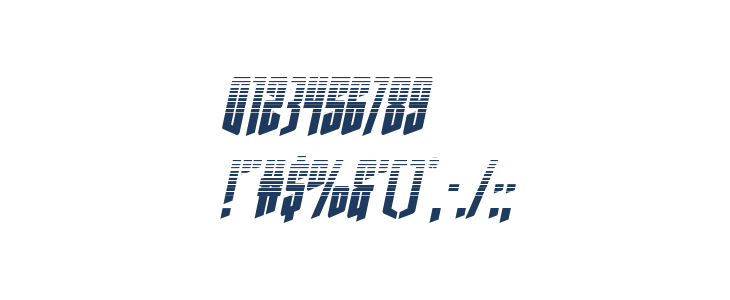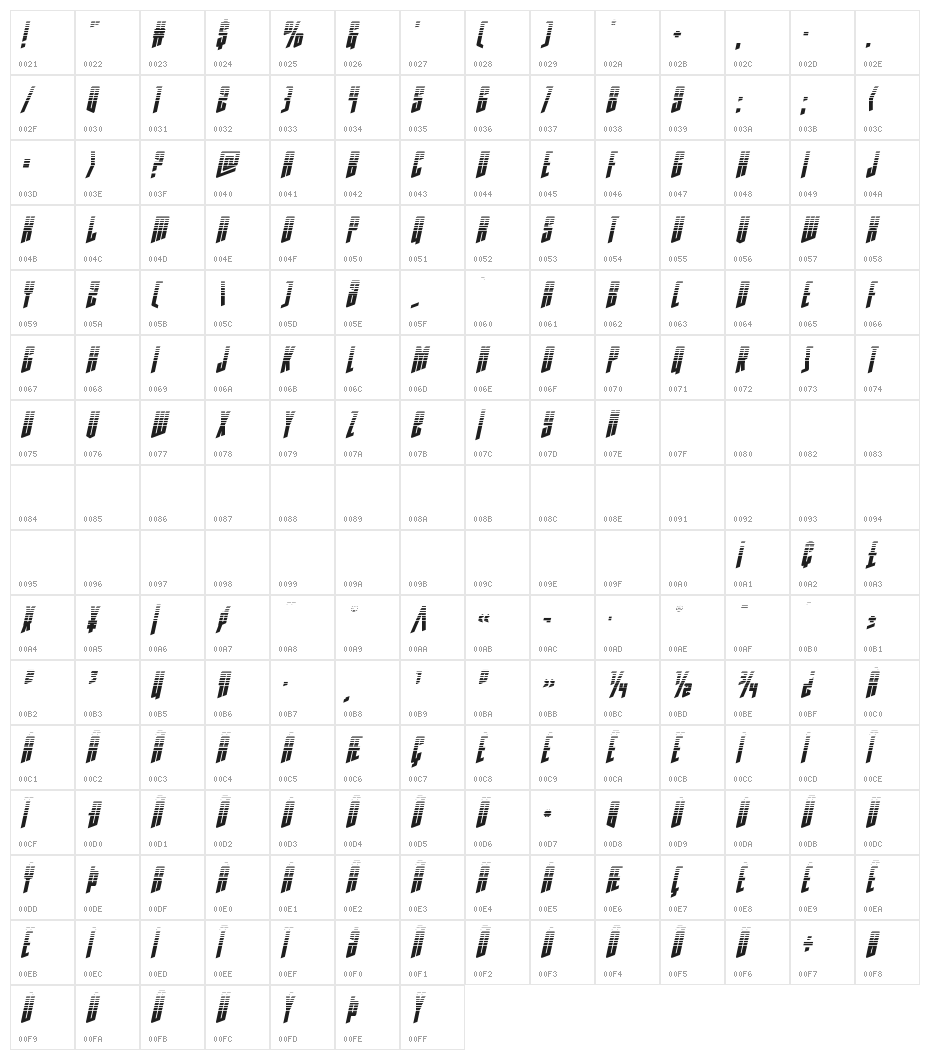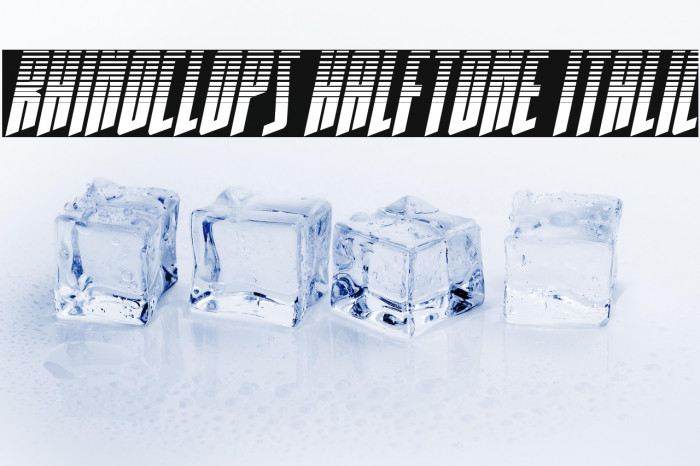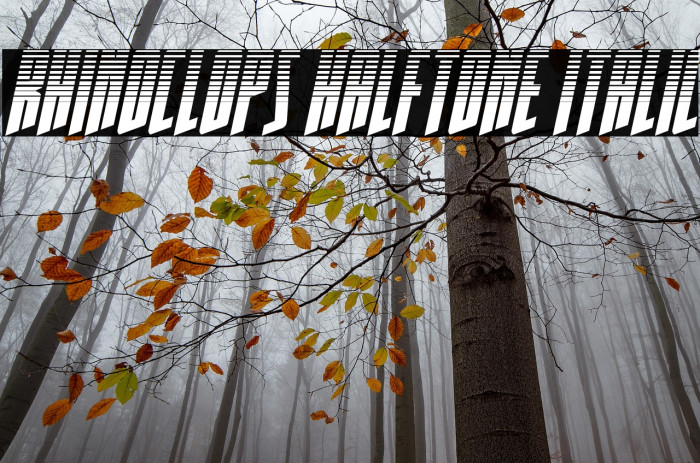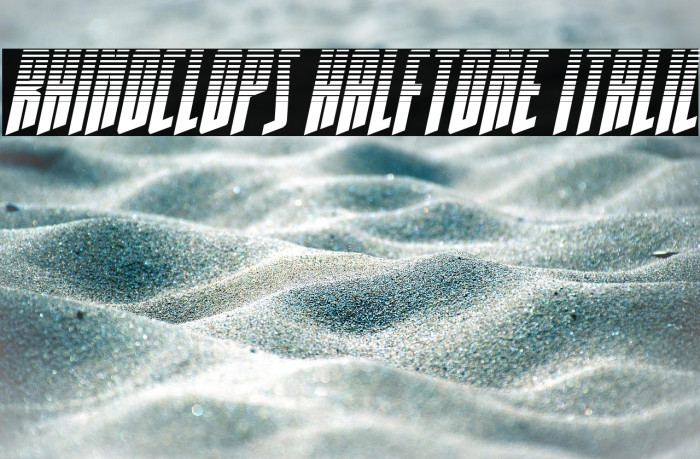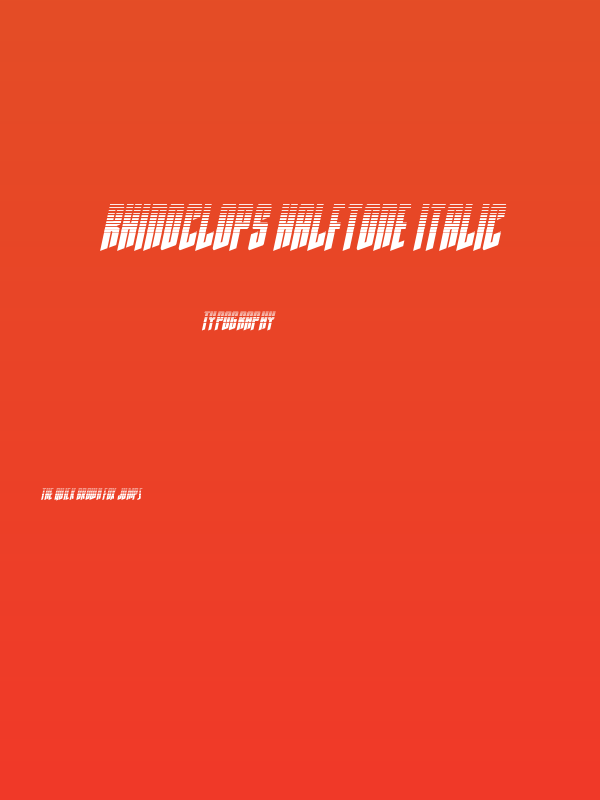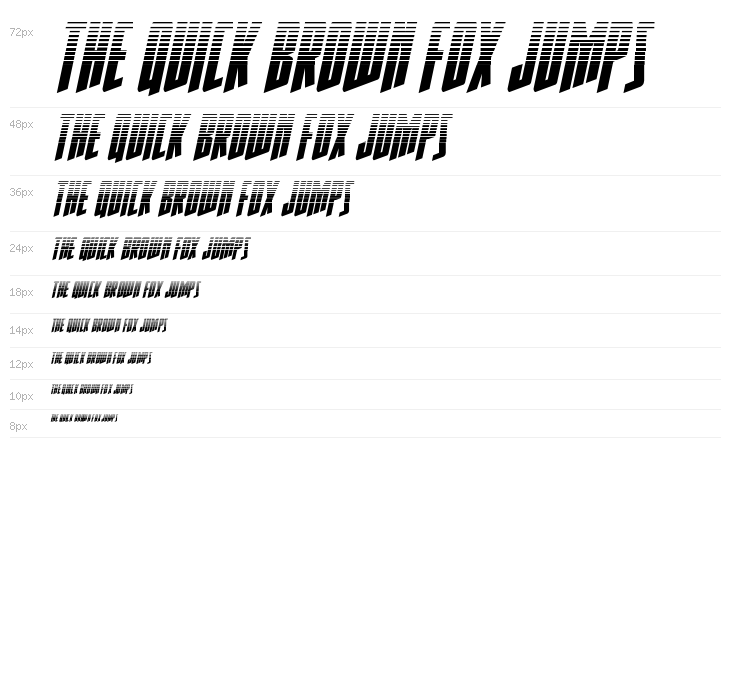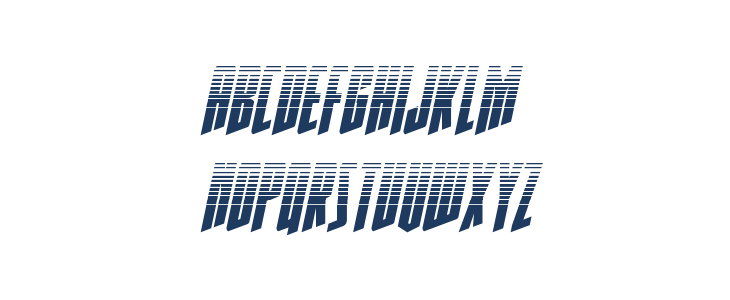
Rhinoclops Halftone Italic Font
Rhinoclops Halftone Italic Description
This font features a bold, italicized style with a distinctive halftone effect, creating a dynamic and eye-catching appearance. The characters are designed with a strong slant, enhancing the sense of motion and energy. The halftone pattern adds a unique texture, giving the font a modern and edgy look. The uppercase and lowercase letters maintain a consistent style, with sharp angles and clean lines. Numbers and special characters are equally bold and stylized, making them suitable for impactful designs. The overall design is both decorative and functional, ideal for projects that require a strong visual statement.